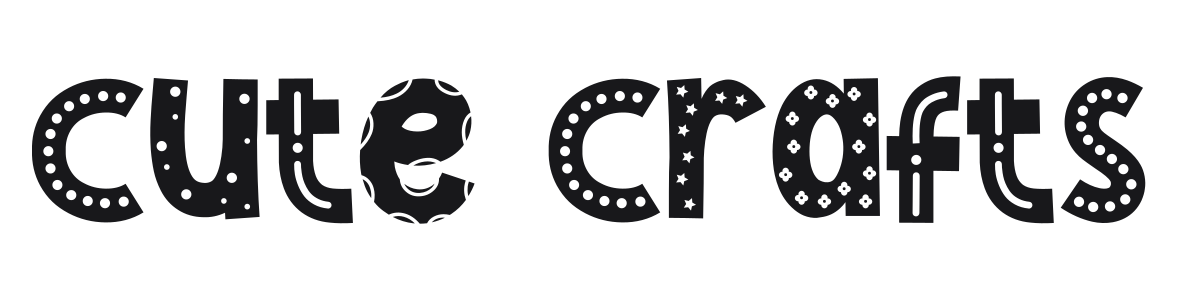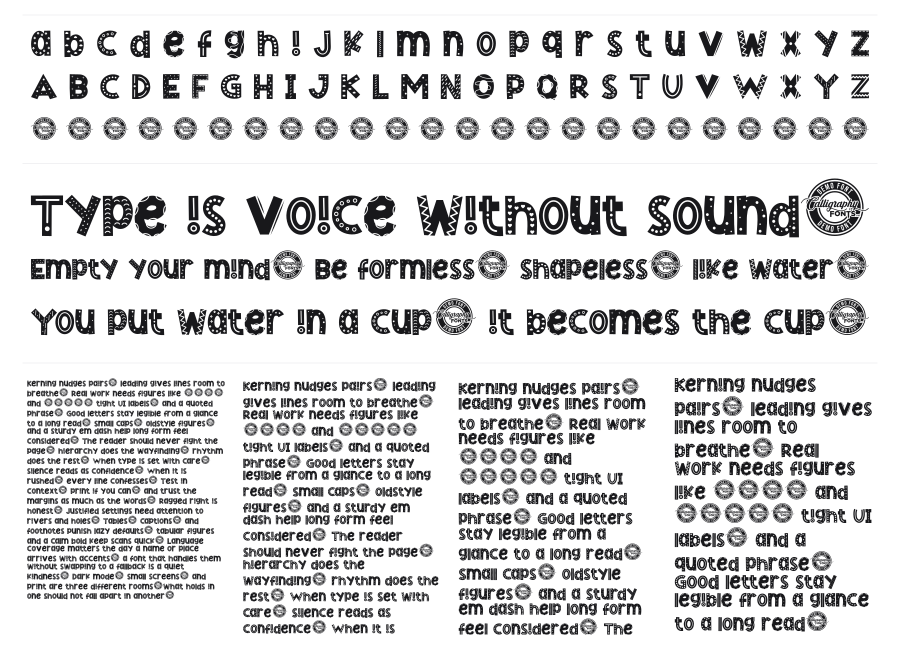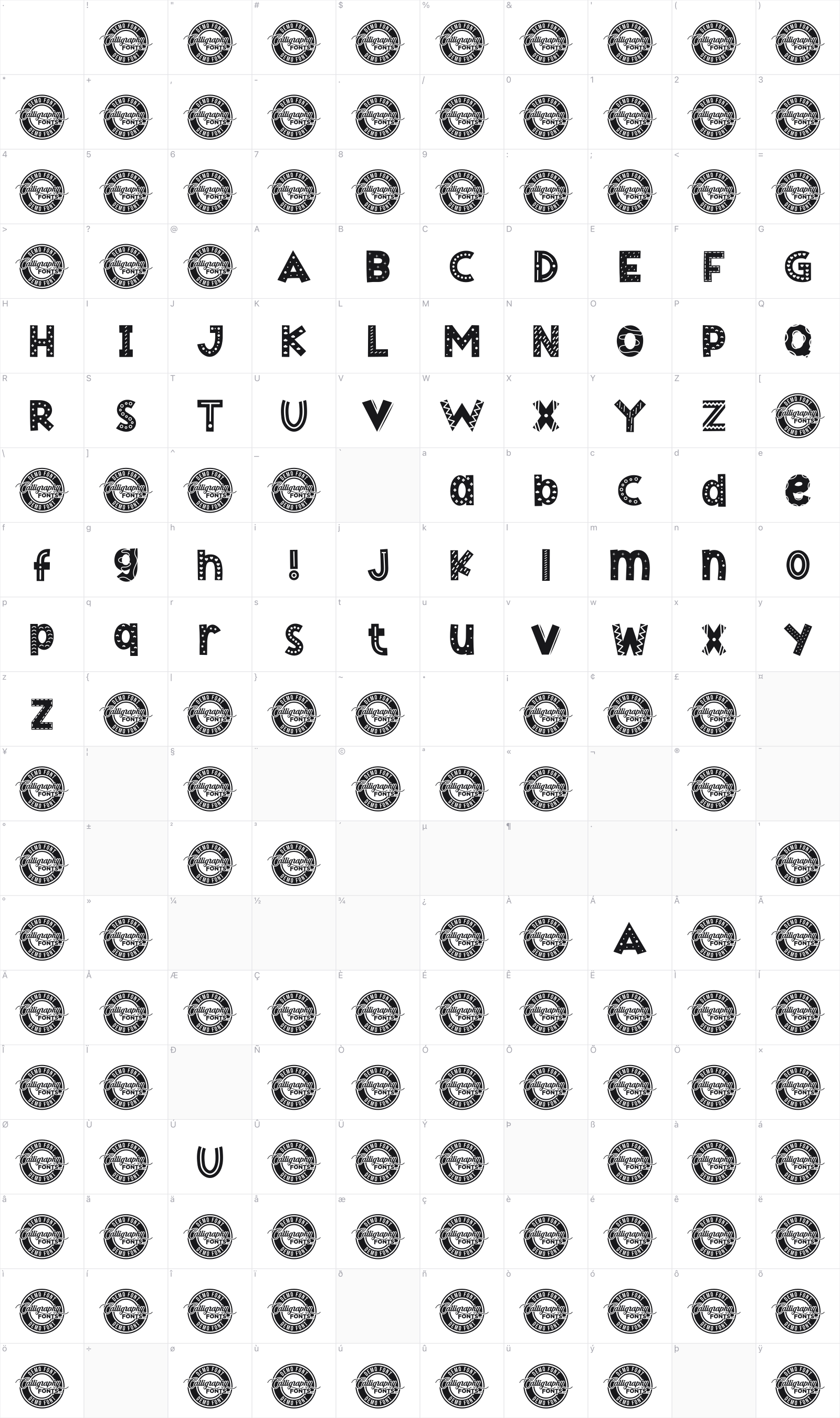
Cute Crafts
Cute Crafts is a bold novelty display font where every character wears a different interior pattern, from sparkle stars to polka dots to swirling textures. The chunky, rounded silhouette gives it an unmistakably handmade, craft-fair energy. It works best large, where the decorative fills can actually be seen and appreciated.